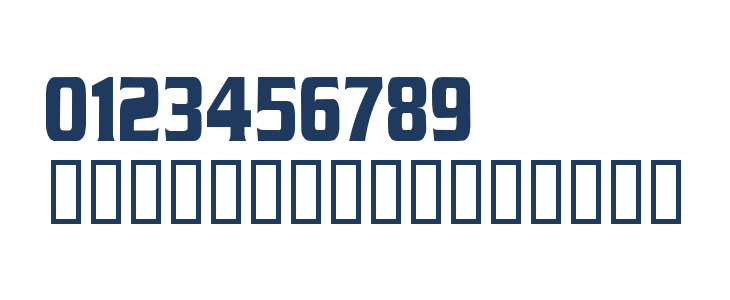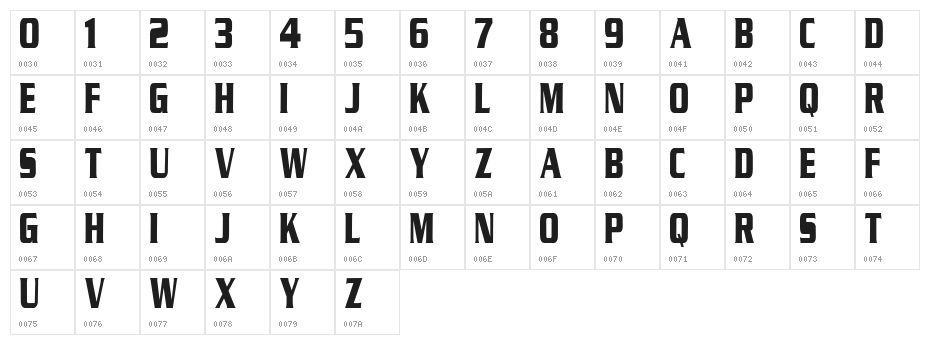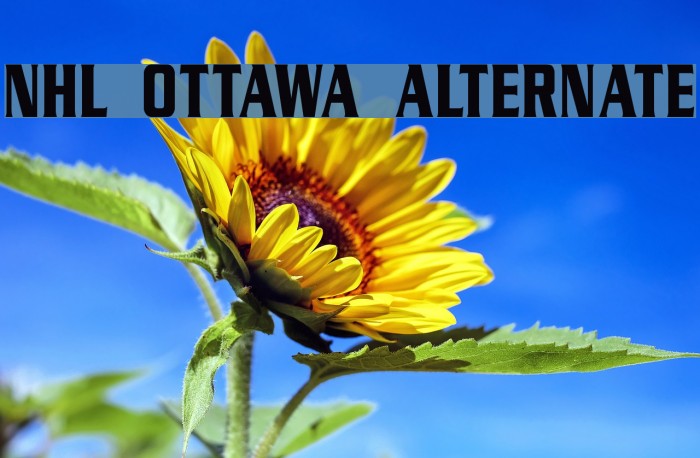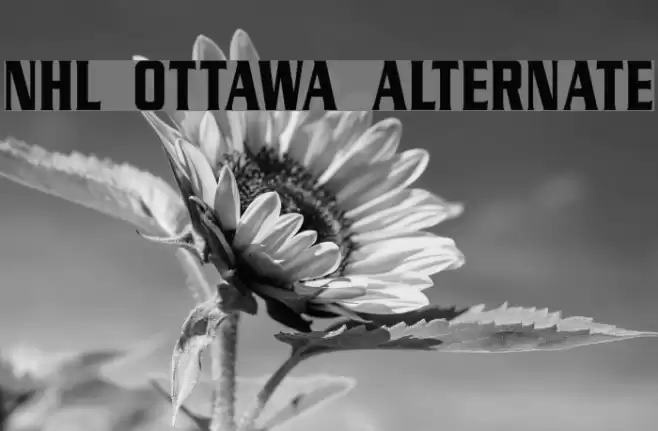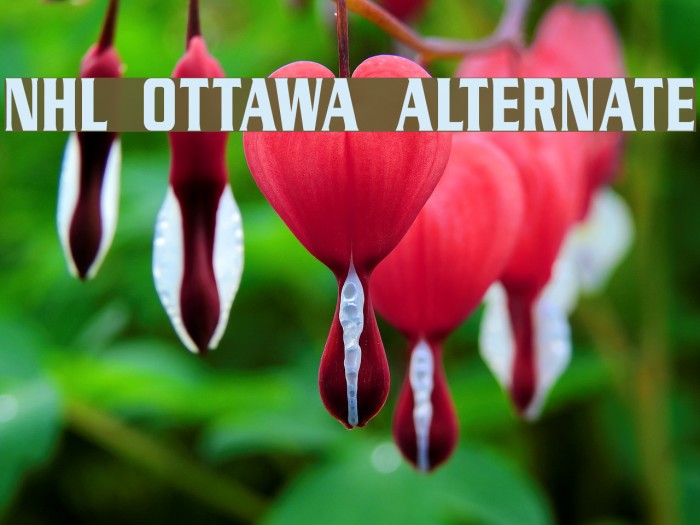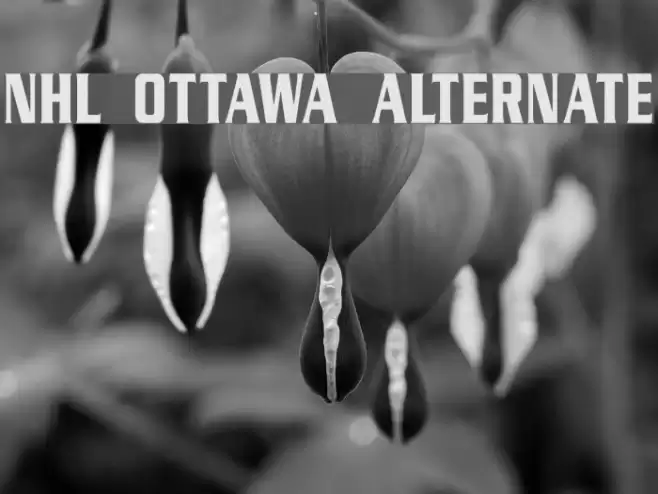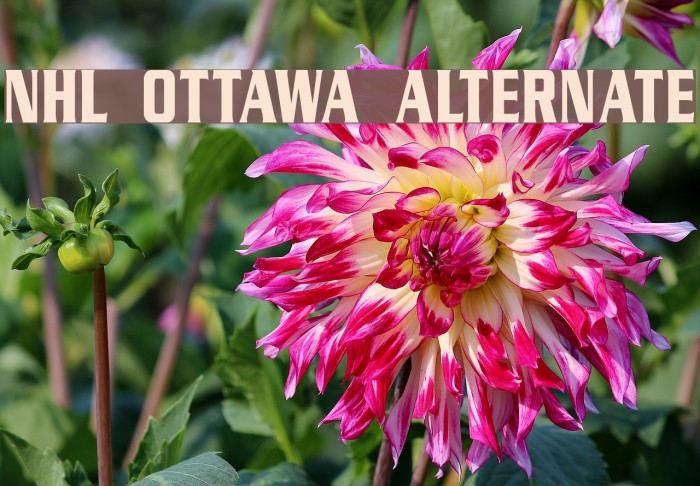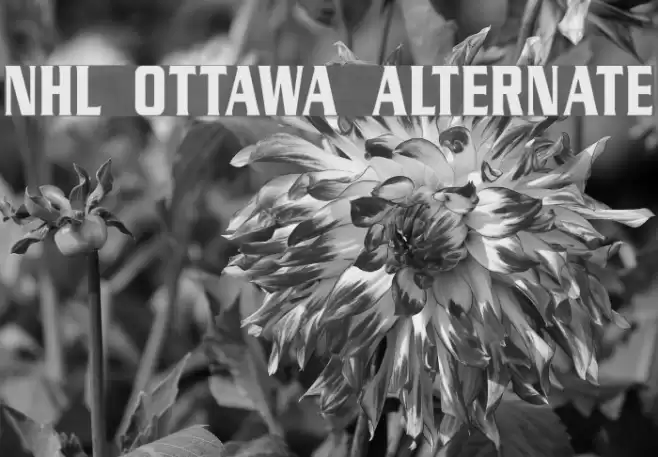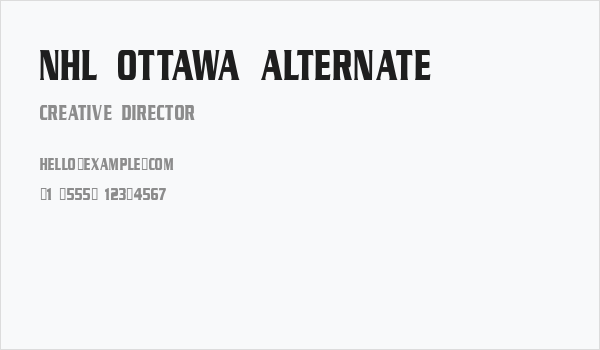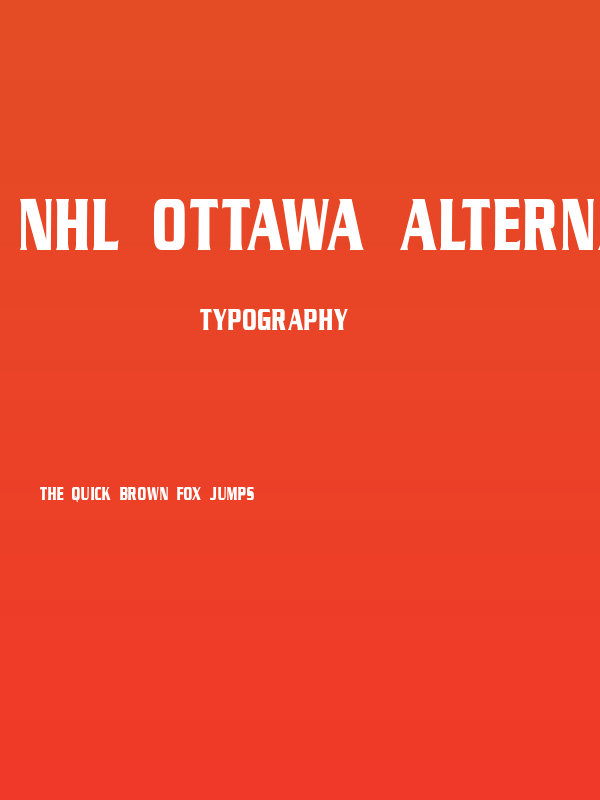
NHL Ottawa Alternate Font
NHL Ottawa Alternate Description
This font features bold, angular characters with a strong, athletic presence. The uppercase letters are sharp and slightly condensed, giving a sense of power and movement. The numbers are equally bold, maintaining the same angular style, which enhances readability and impact. The font lacks lowercase letters and special characters, focusing on a straightforward, impactful design. Its geometric shapes and clean lines make it ideal for sports-related themes, conveying energy and strength.
| Use Case | Logos, Headlines |
| Proposed Projects | Ideal for sports team branding, athletic event posters, and merchandise designs. |